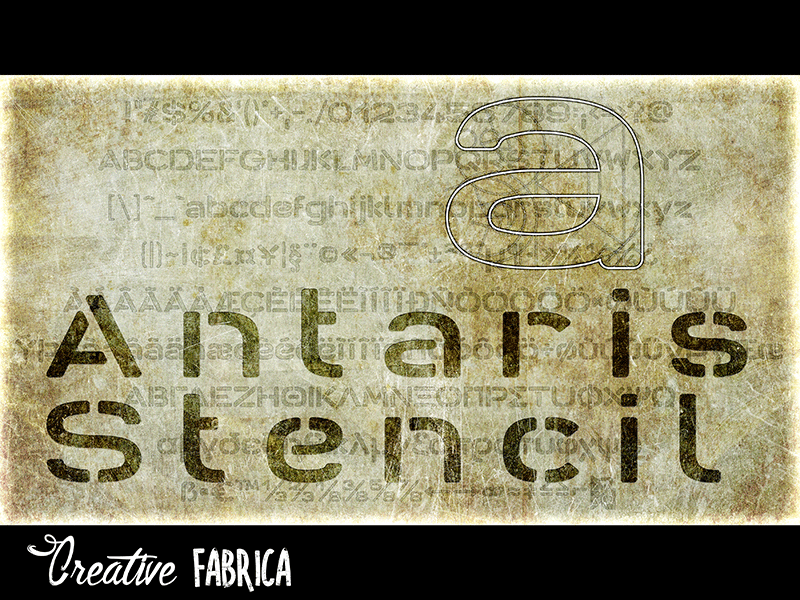
Antaris Stencil is like Antaris a lightly rounded, modern and well constructed sans serif font, good readable in smaller sizes and usable for displays as well. Stencil gives a strong font like Antaris a touch of lost or secret significance which can be found on Stoneage walls as well as on military concrete walls or wooden cargo boxes. This version is free for private use. The full version can be purchased here: https://www.creativefabrica.com/product/antaris-stencil/ Antaris Regular can be found here: http://dagohbert.deviantart.com/art/Antaris-658127350 Enjoy ! |